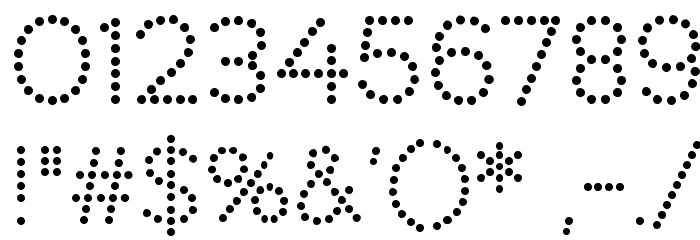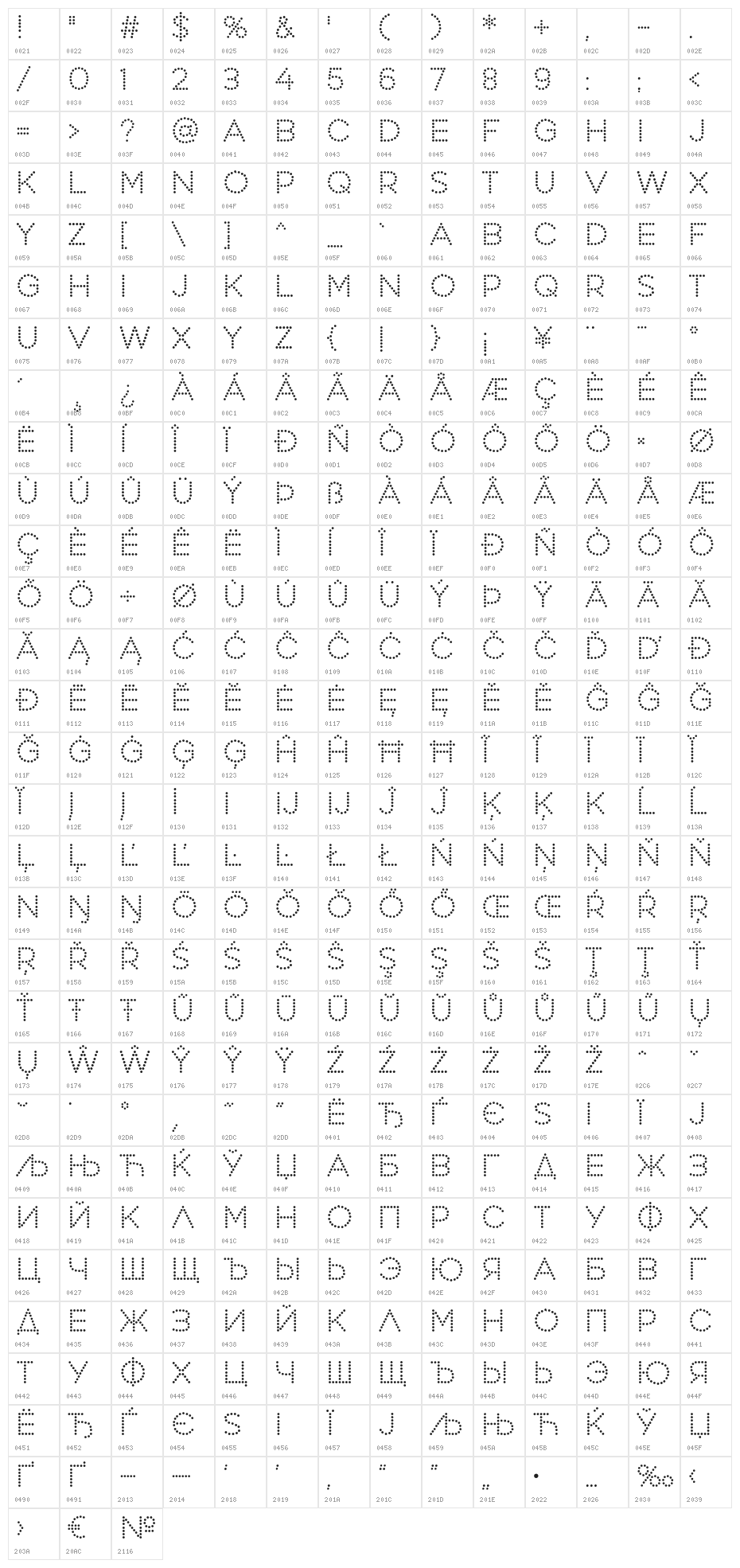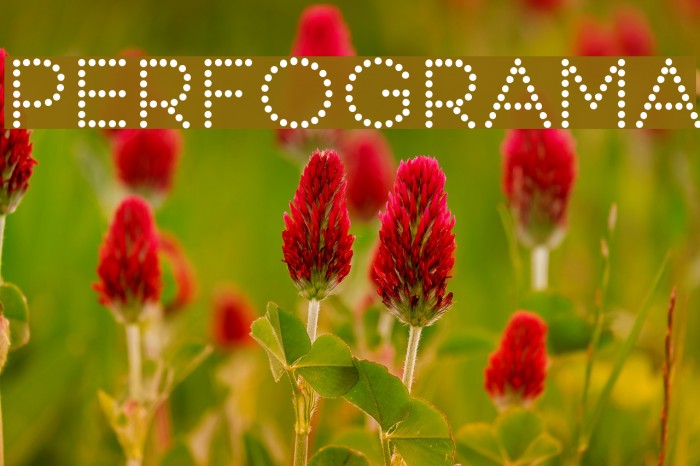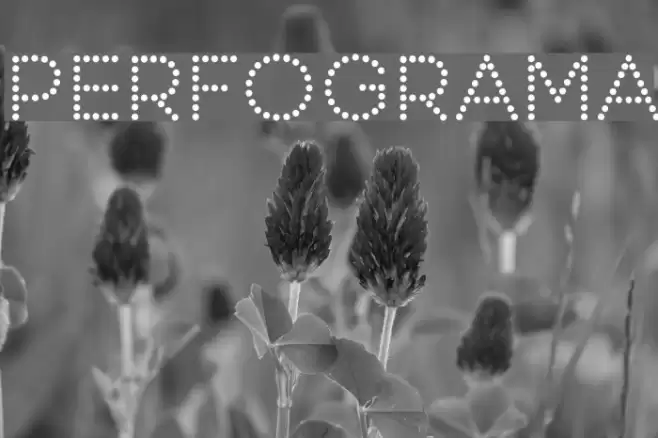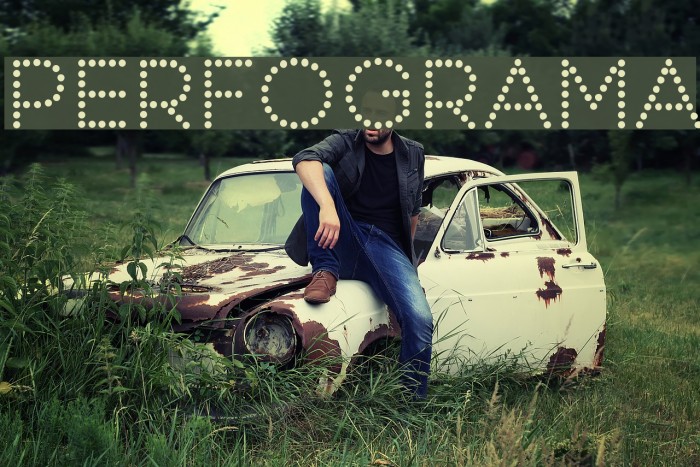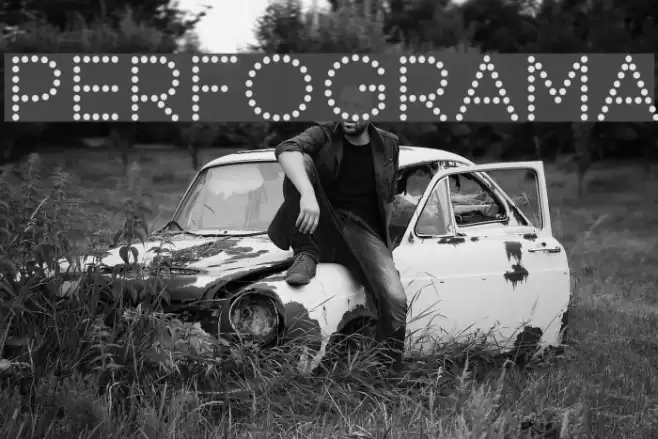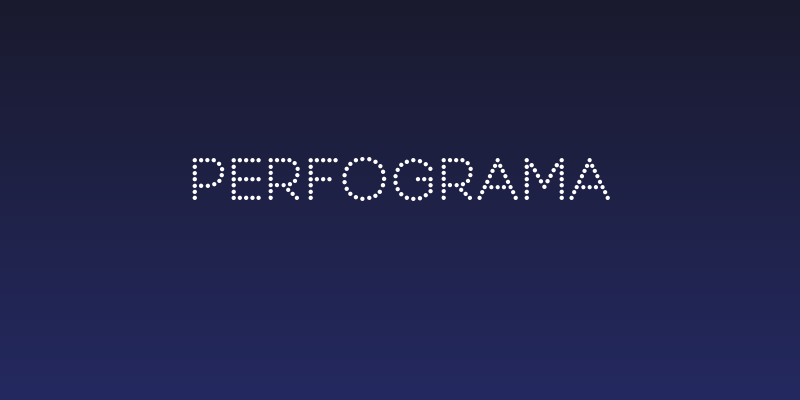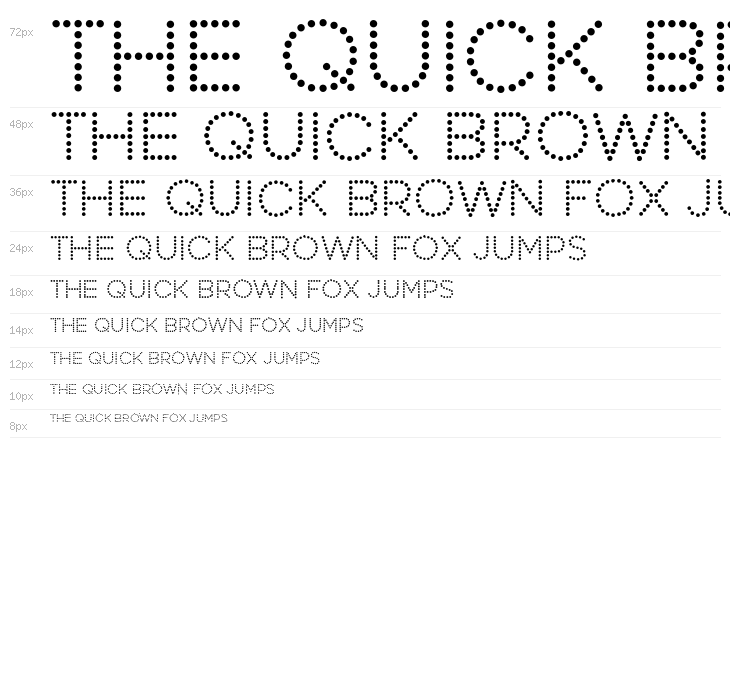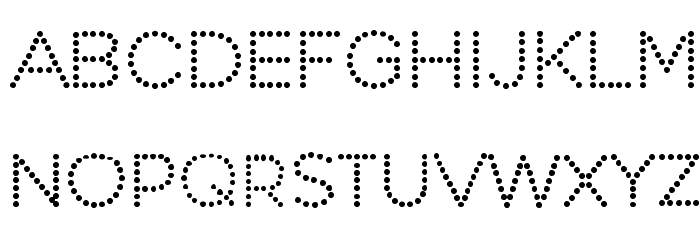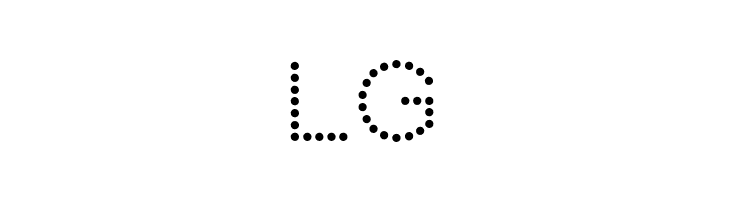
Perfograma Font
Perfograma Description
This font features a unique dot matrix style, where each character is composed of evenly spaced dots forming the shape of letters and numbers. The design is reminiscent of vintage digital displays or punch card systems, giving it a retro-futuristic feel. The uppercase and lowercase letters maintain consistent spacing and alignment, ensuring readability despite the unconventional style. Numbers and special characters are also crafted with the same dot pattern, providing a cohesive look across all glyphs. This font's distinct appearance makes it ideal for projects that require a technological or retro aesthetic.
| Overall Style | Retro-Futuristic |
| Proposed Projects | Ideal for digital displays, retro-themed designs, tech branding, and creative posters. |